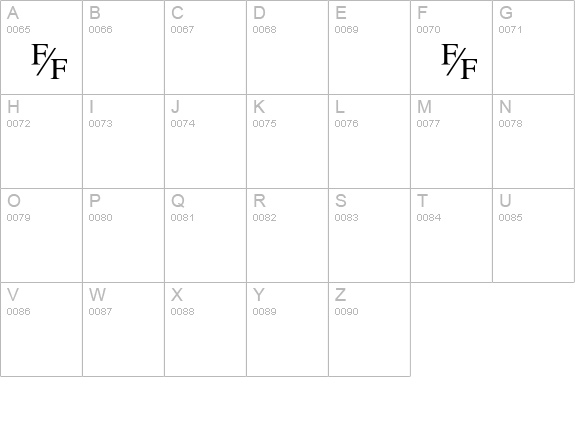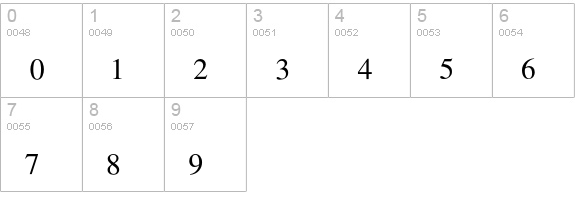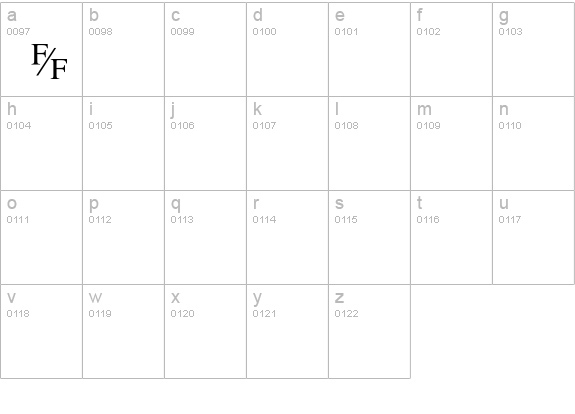
TmsFE Font Details
TmsFE font is a stunning typeface that effortlessly combines elegance and modernity. With its sleek and sophisticated design, this font is perfect for any project that requires a touch of class and refinement. Whether you're designing a logo, creating a website, or crafting a beautiful invitation, TmsFE font will elevate your work to new heights. One of the best things about TmsFE font is that it is completely free. Yes, you read that right - this incredible font is freely available to download at FontsMarket.com. No need to worry about breaking the bank or searching for pricey alternatives, because TmsFE font gives you the high-quality design you desire at absolutely no cost. Featuring a wide range of characters and glyphs, TmsFE font offers versatility and flexibility for all your creative needs. Its clean lines and balanced proportions make it easy to read and highly legible, ensuring that your message will be conveyed with clarity and impact. Whether you're a professional designer or a hobbyist, TmsFE font is a must-have in your font collection. Its timeless beauty and effortless style make it suitable for a wide range of projects, from branding and advertising to packaging and editorial design. With TmsFE font, you have the power to create visually stunning and memorable designs that will leave a lasting impression. So why wait? Don't miss out on the opportunity to enhance your creative projects with the exquisite TmsFE font. Download it for free today at FontsMarket.com and discover the endless possibilities this font has to offer. Elevate your designs and make a statement with TmsFE font - your go-to font for sophistication and style.